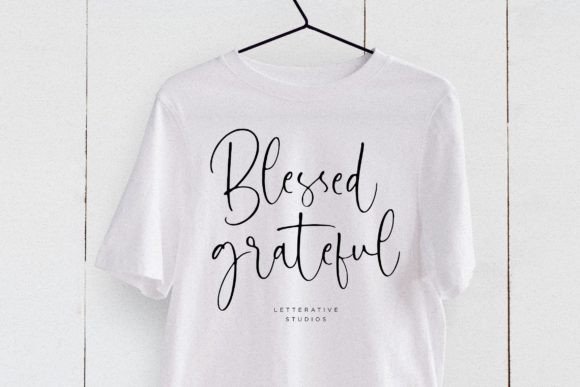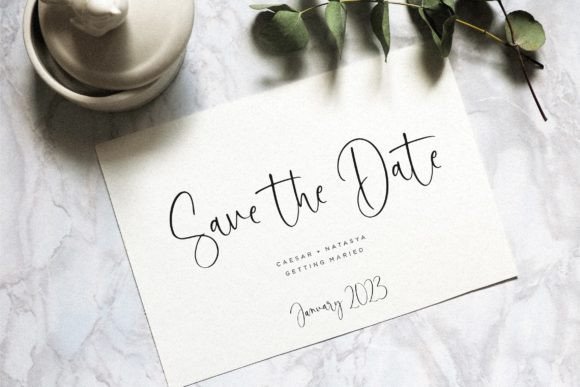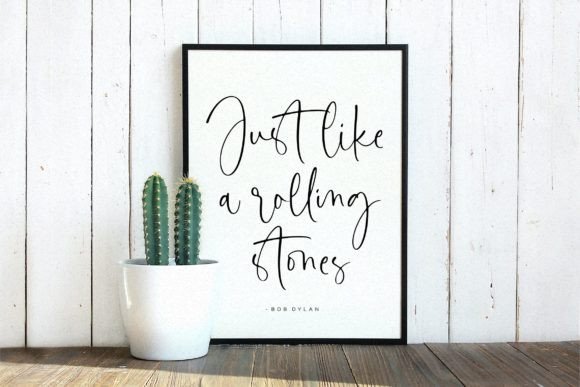
Wildstar Font
About Wildstar Font
Wildstar Font is a modern handwritten typeface crafted to bring elegance and sophistication to your creative projects. Its smooth, flowing strokes make it an excellent choice for logos, wedding stationery, websites, personal branding, and any design that calls for a luxurious handwritten touch. Wildstar adds a refined and stylish personality, elevating your work with timeless beauty.
Elegant and Modern Style
Wildstar combines contemporary design with classic handwritten charm. The font features clean, graceful letterforms that are both stylish and readable. Its balanced style makes it suitable for a wide range of applications, giving your projects a polished and high-end feel.
Ideal Uses for Wildstar Font
This font is perfect for:
• Elegant logos and brand identities
• Wedding invitations and stationery
• Personal branding and portfolios
• Websites and digital media
• Luxury packaging and product design
Wildstar adds sophistication and warmth to every project.
Why Choose Wildstar Font?
Designers choose Wildstar for its:
• Smooth and elegant handwritten strokes
• Modern yet timeless aesthetic
• Versatility across print and digital platforms
These features make Wildstar both practical and beautiful.
Add Luxury and Style to Your Designs
Typography defines the tone of your project. Wildstar offers a luxurious, elegant feel that enhances your designs with personality and class. Whether for branding or special occasions, this font helps your message shine.
In summary, Wildstar Font is a modern and elegant handwritten script perfect for logos, weddings, branding, and more. Add Wildstar to your font collection to create stylish and memorable designs with a luxurious touch.